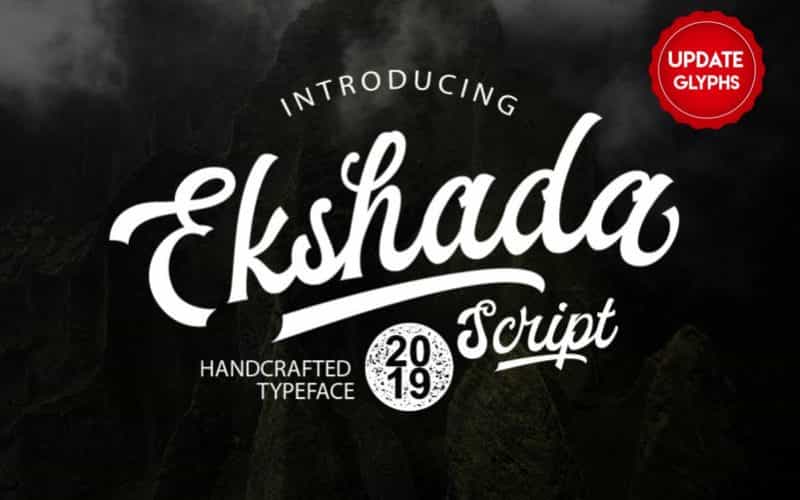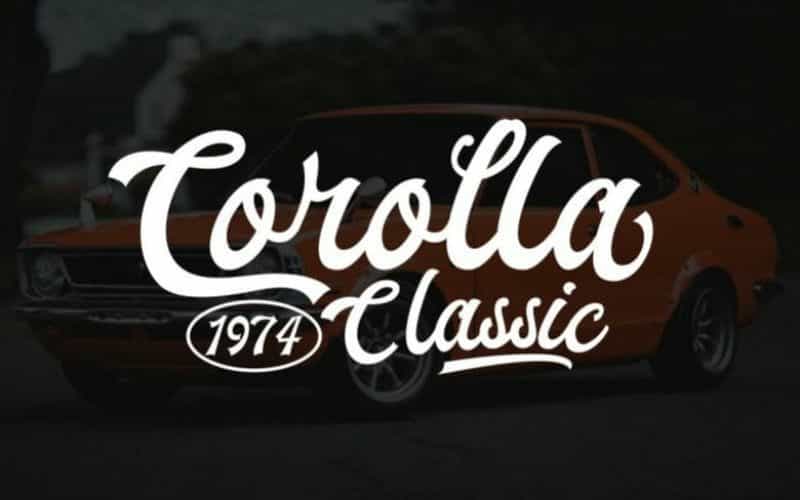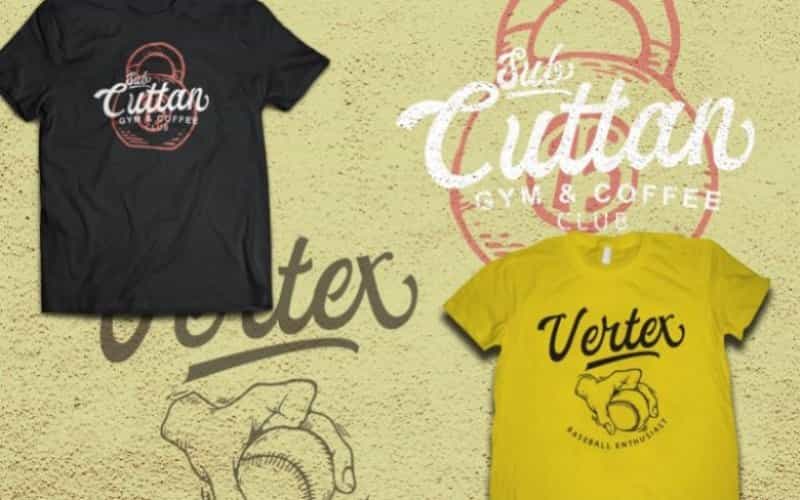
Discover Ekshada Script Font, part of the Brush Calligraphy Old School collection—a versatile and unique font perfect for adding a personal touch to your projects. Download it for free and enjoy crafting designs with style, from invitations to social media posts. This font is available exclusively for personal use, giving you the freedom to create without limits. Unlock your creativity with Ekshada Script Font today!
Ekshada Script is a hand-drawn script that was influenced by the vintage posters and logos. This font is a good representation of the classical, vintage, and clear style of a typeface. It also has the uppercase, lowercase, and numerals for free for the personal use. If you are in need of the set of multilinguals, opentype alternates, ligatures, some swash, and FREE illustrations to make your designs.